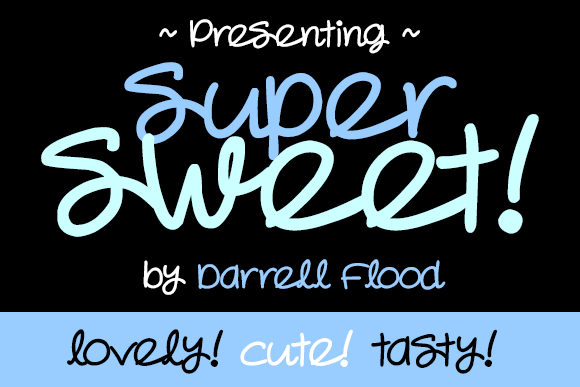
Super Sweet Font
About Super Sweet Font
Super Sweet is a loose, carefree, marker font in a looping style. Perfect for cartoonish handwriting and sweet related themes!